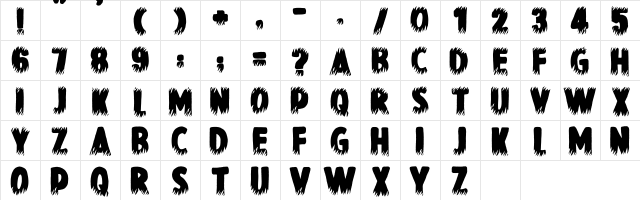
Inner Mounting Flame Regular
Design Context for Inner Mounting Flame Typeface
Inner Mounting Flame is a composed and adaptable typeface that performs quietly and consistently across a wide range of design contexts.